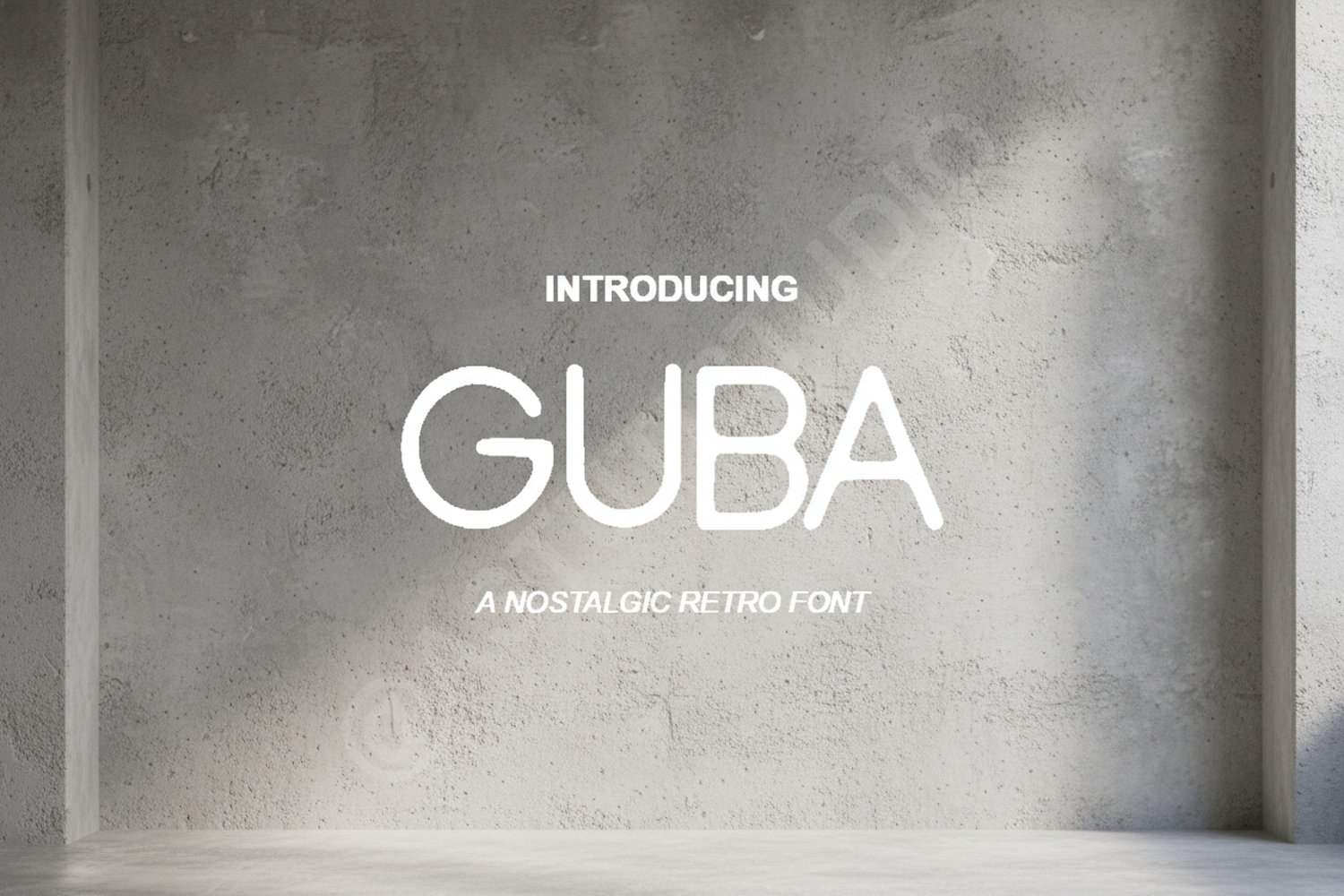
Guba - Professional Modern Sans Serif
Guba
Guba is a premium sans serif typeface designed with precision and modern aesthetics in mind. Its clean lines and balanced proportions make it an essential tool for designers seeking a sophisticated look for their projects. Whether you are working on a high-end corporate identity or a minimalist editorial layout, Guba provides the versatility and clarity needed to stand out in a crowded market.
- Professional Branding and Visual Identities
- Modern Logo Design and Typography
- High-impact Headlines and Editorial Layouts
- Social Media Graphics and Marketing Materials
- Minimalist Packaging and Product Labeling
- Website Headers and Digital UI Design